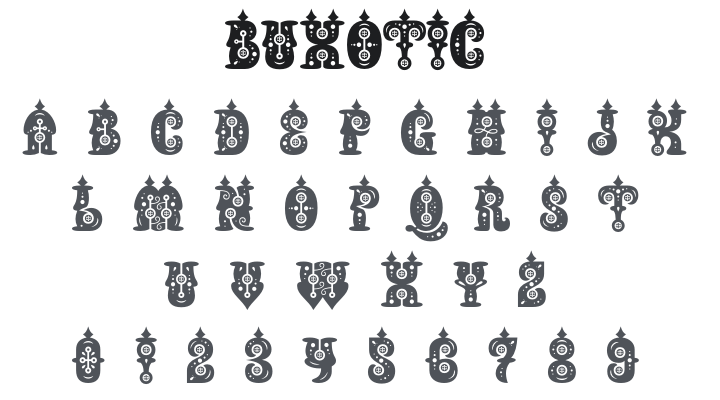
Buxotic Font
About Buxotic
Buxotic is a bold, kitschy display typeface with burlesque, Art Nouveau-inspired letterforms loaded with strange ornamental flourishes and intricate patterns — giving it a cheeky, adults-only vintage cabaret vibe. Its deliberately over-the-top decorative character makes it unforgettable. Great for retro nightclub branding, burlesque show posters, novelty packaging, and any headline that needs theatrical, campy flair.